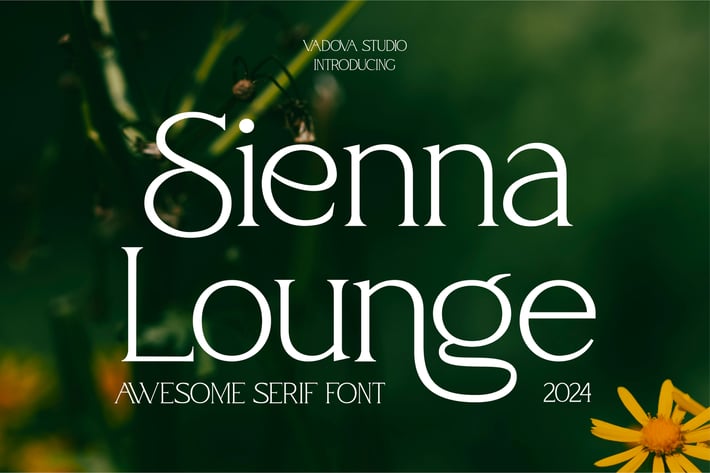
Sienna Lounge Serif Font
Sienna Lounge is a refined serif display font that radiates elegance and modern sophistication. Designed with graceful curves, stylish ligatures, and a natural flow, this typeface is perfect for high-end branding, editorial layouts, lifestyle magazines, and artistic logo design. Its clean lines and versatile form make it ideal for outdoor-themed visuals, garden-inspired aesthetics, and creative expressions where timeless beauty and clarity are essential. Sienna Lounge adds an upscale, polished finish to any project.